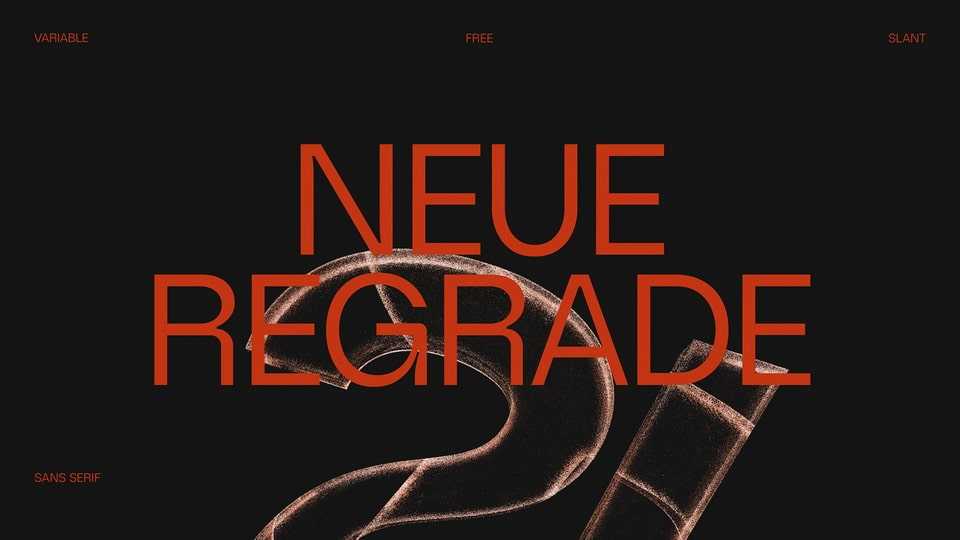
Download Neue Regrade font, a sophisticated variable sans serif typeface, which combines the smooth curves of gothic typography and the slight inktraps in modern typefaces.
Designer: Ungvári József Márk